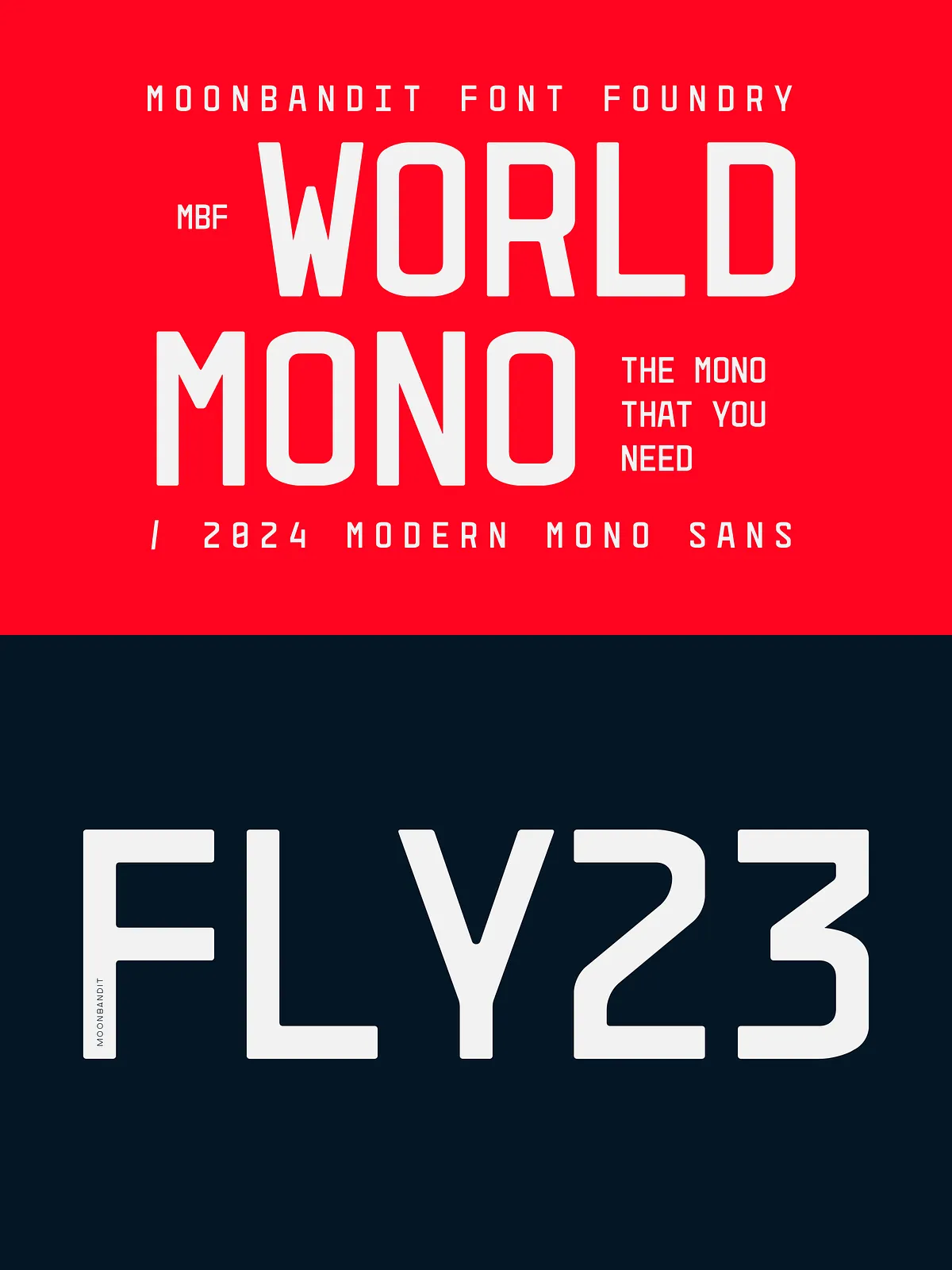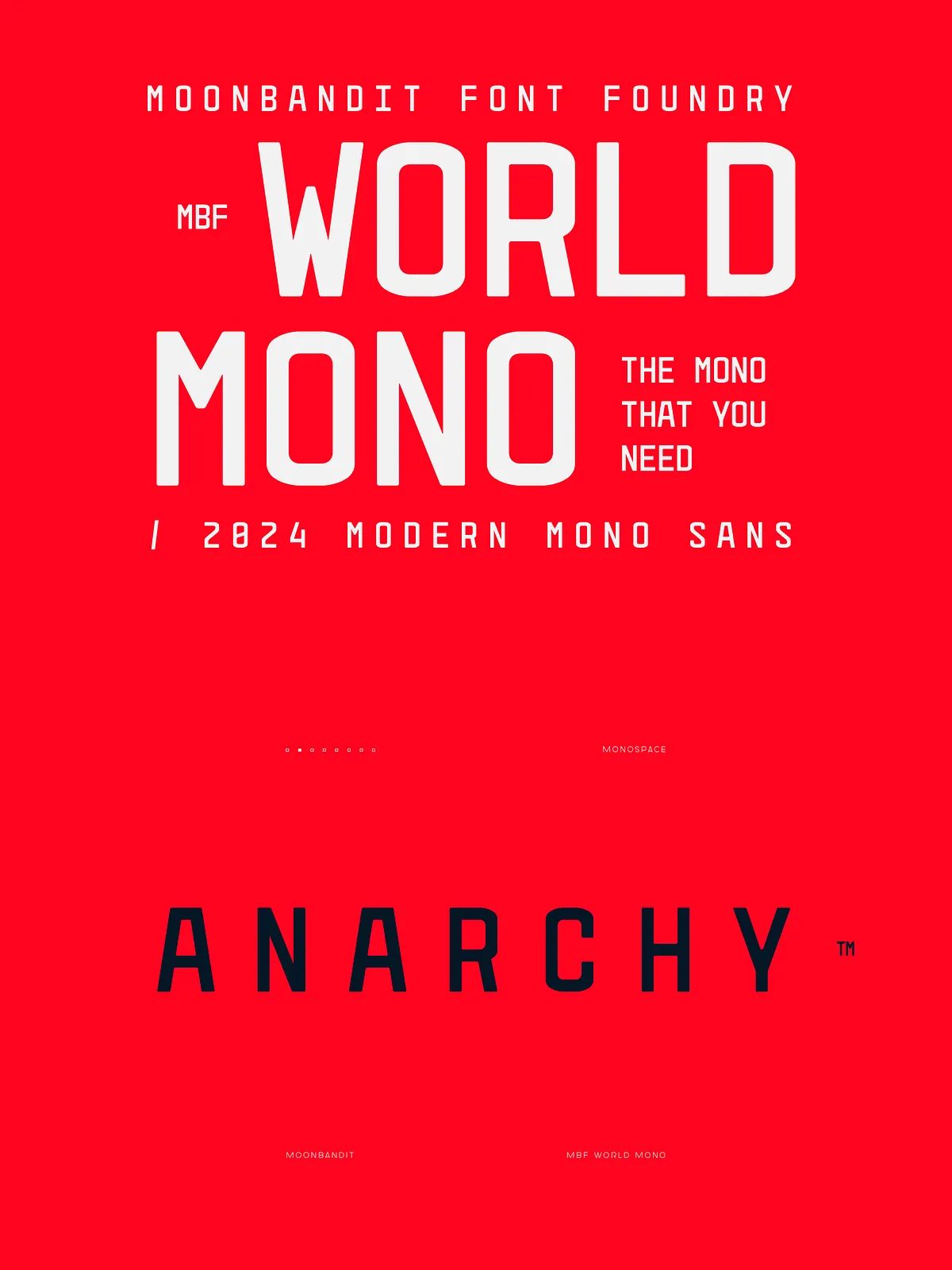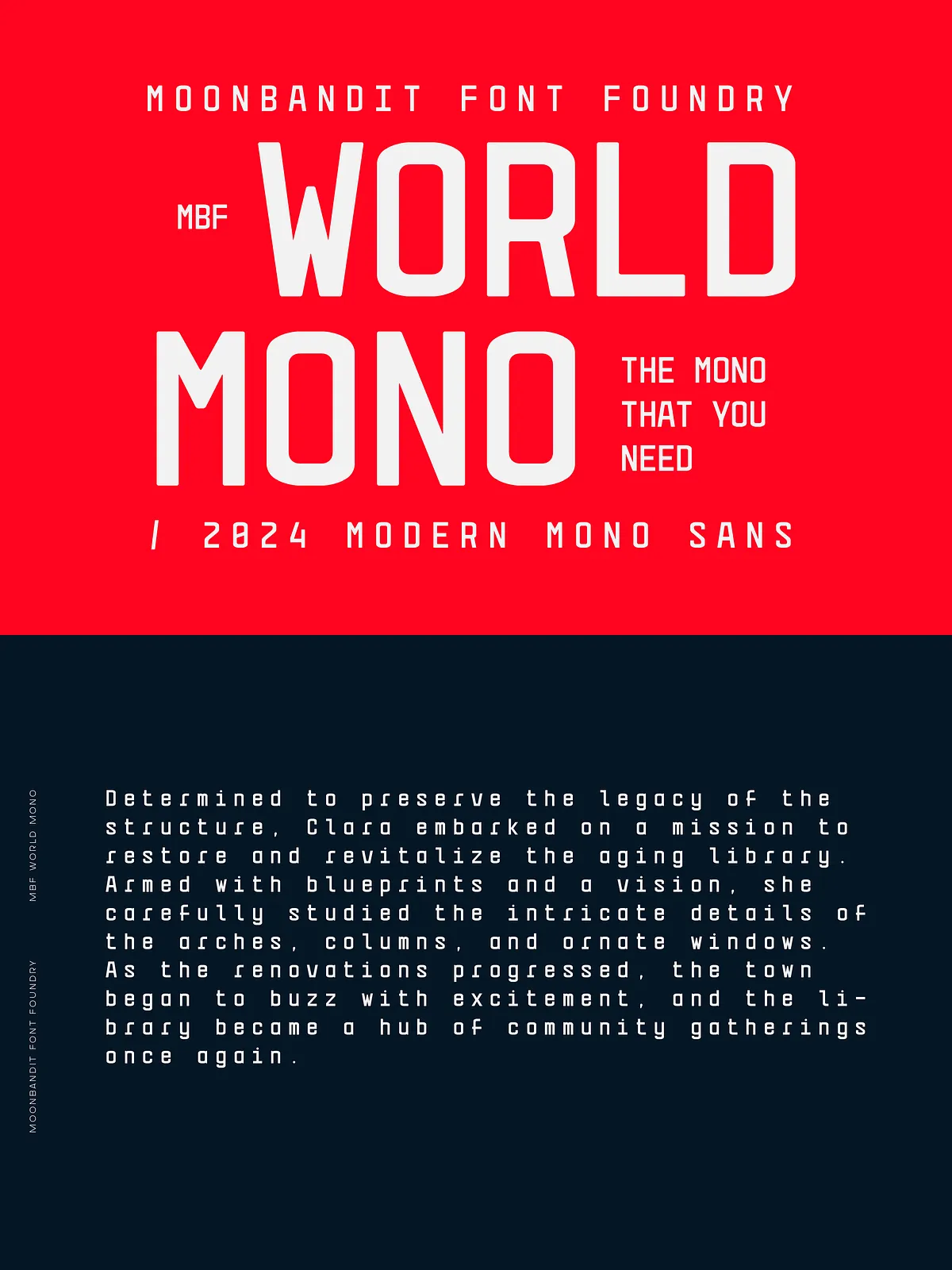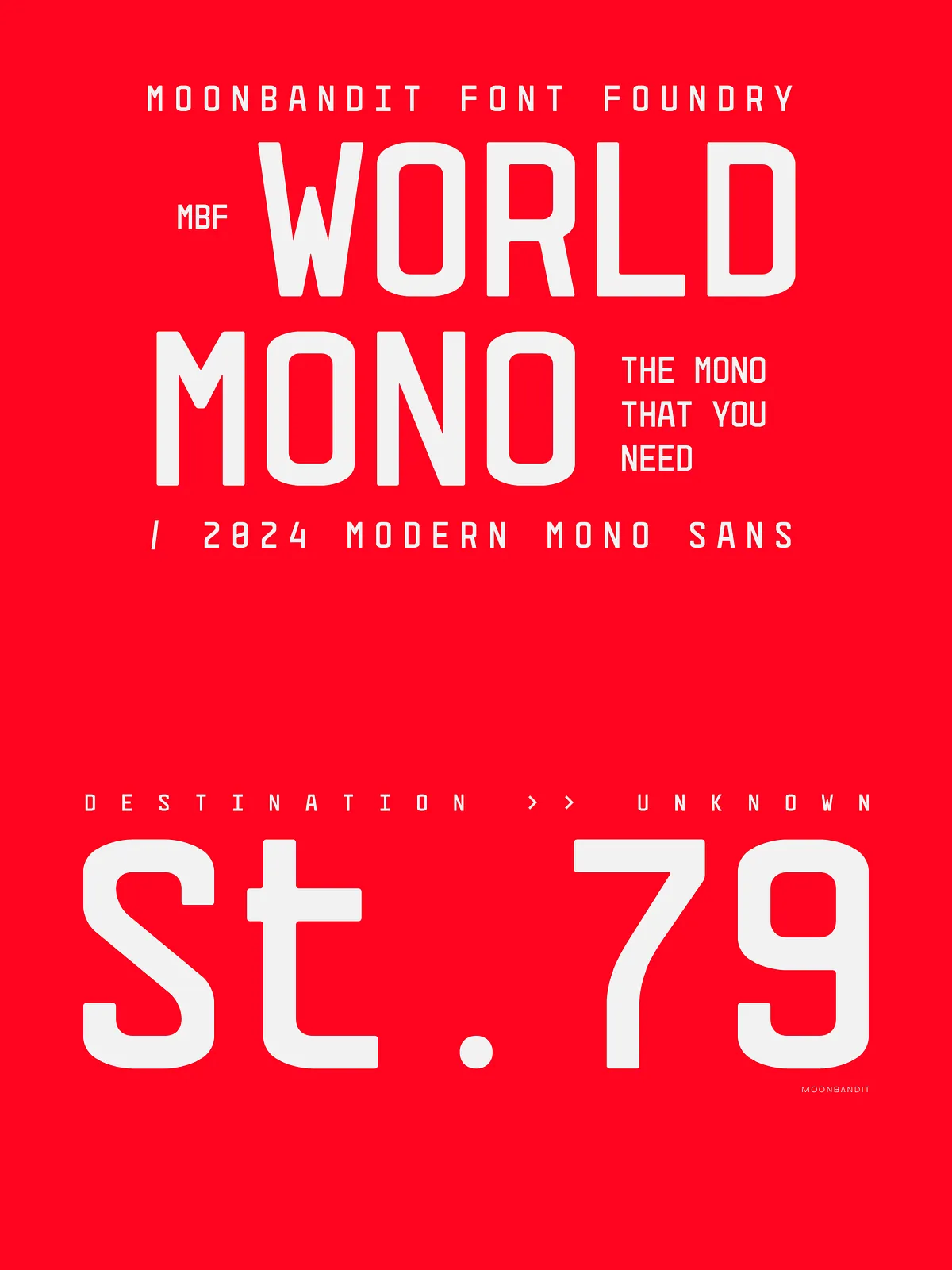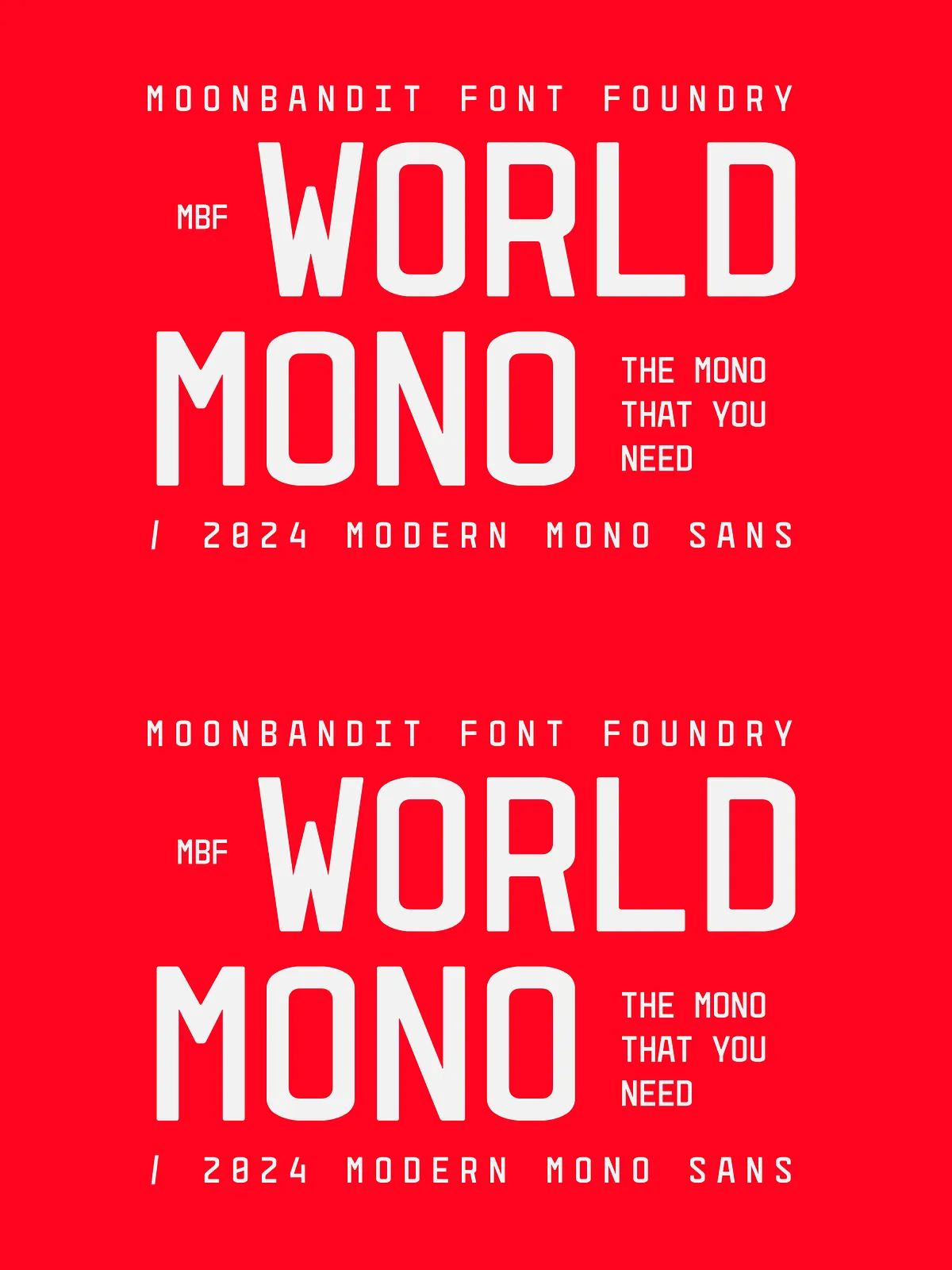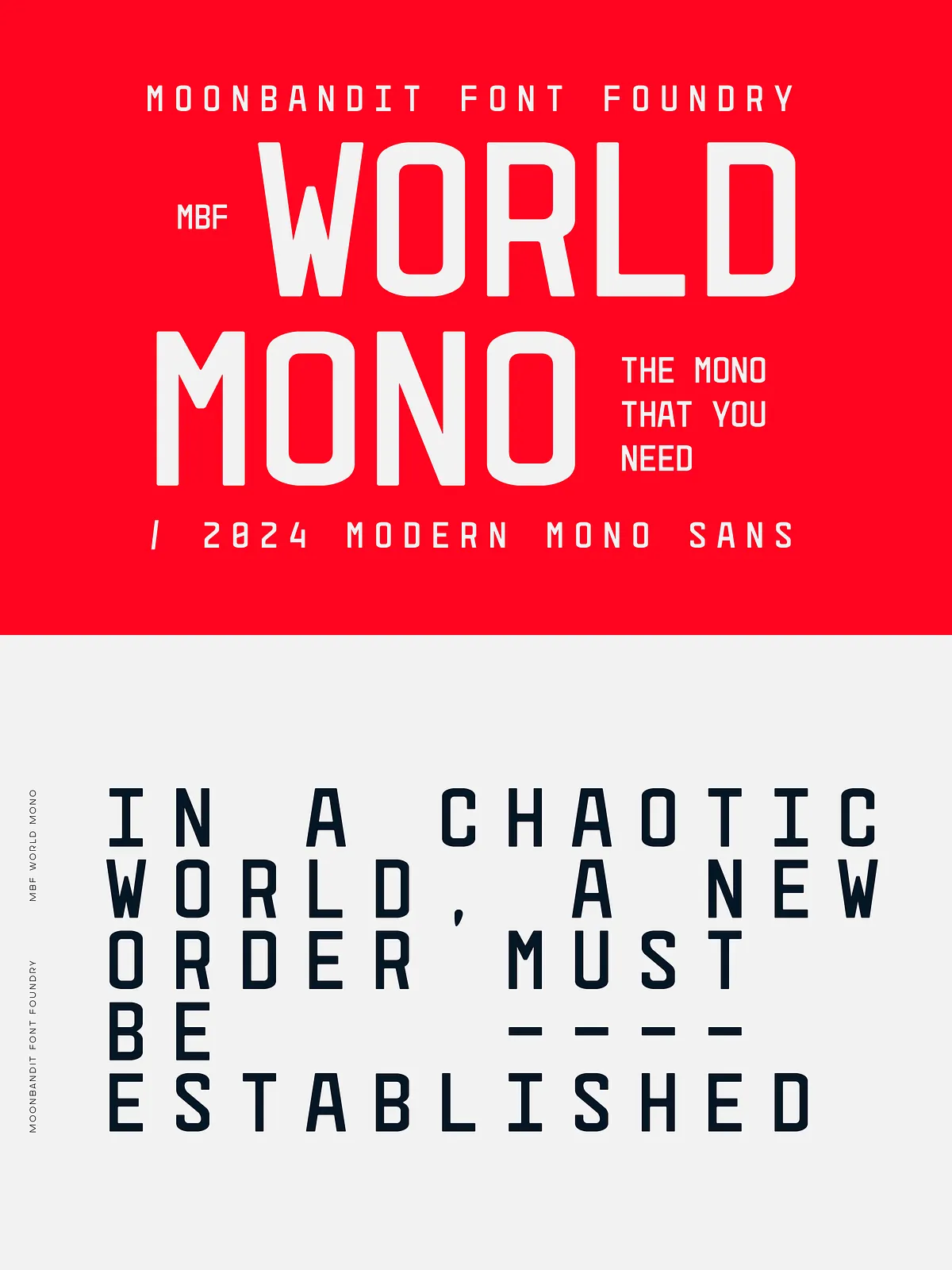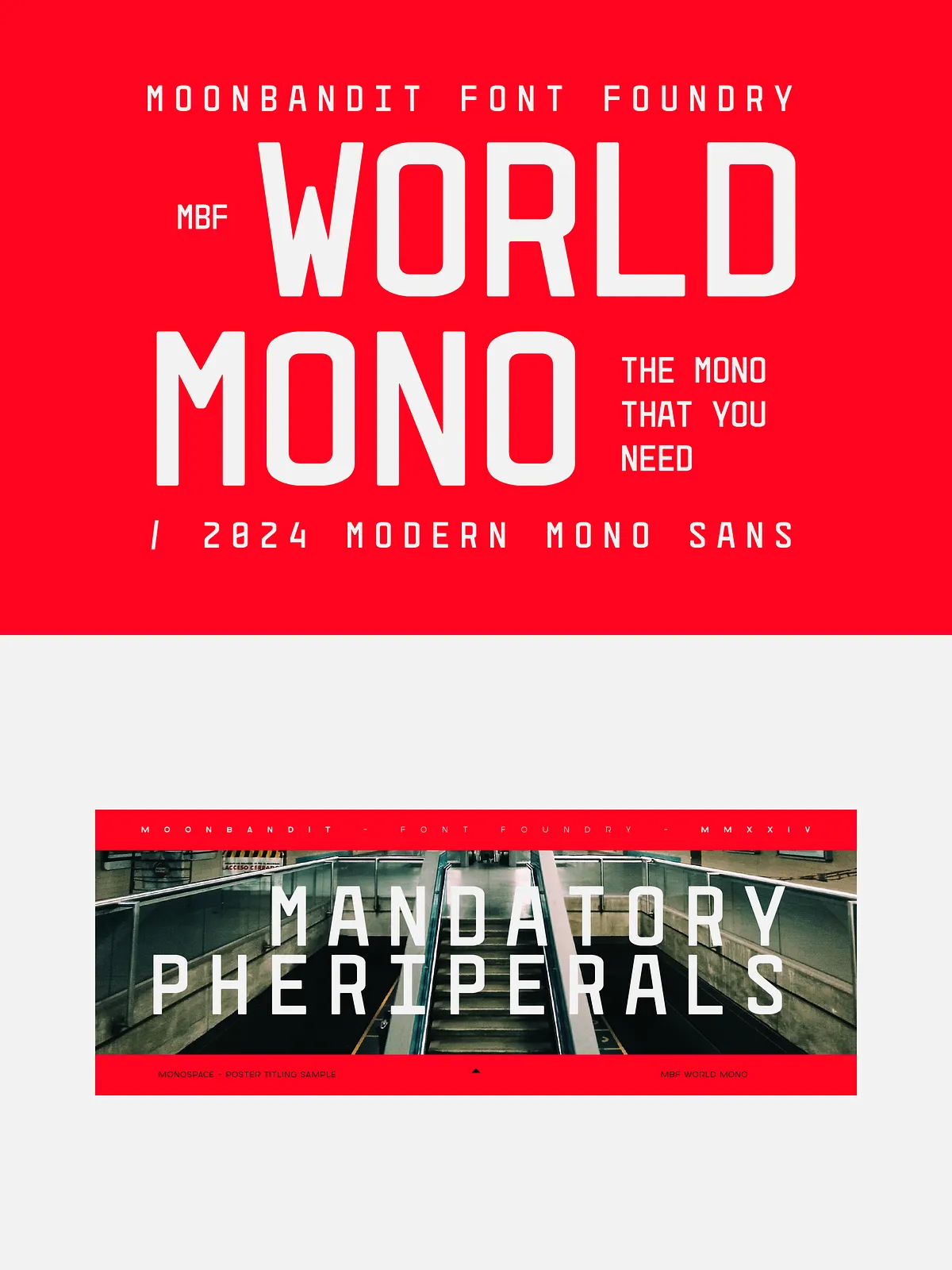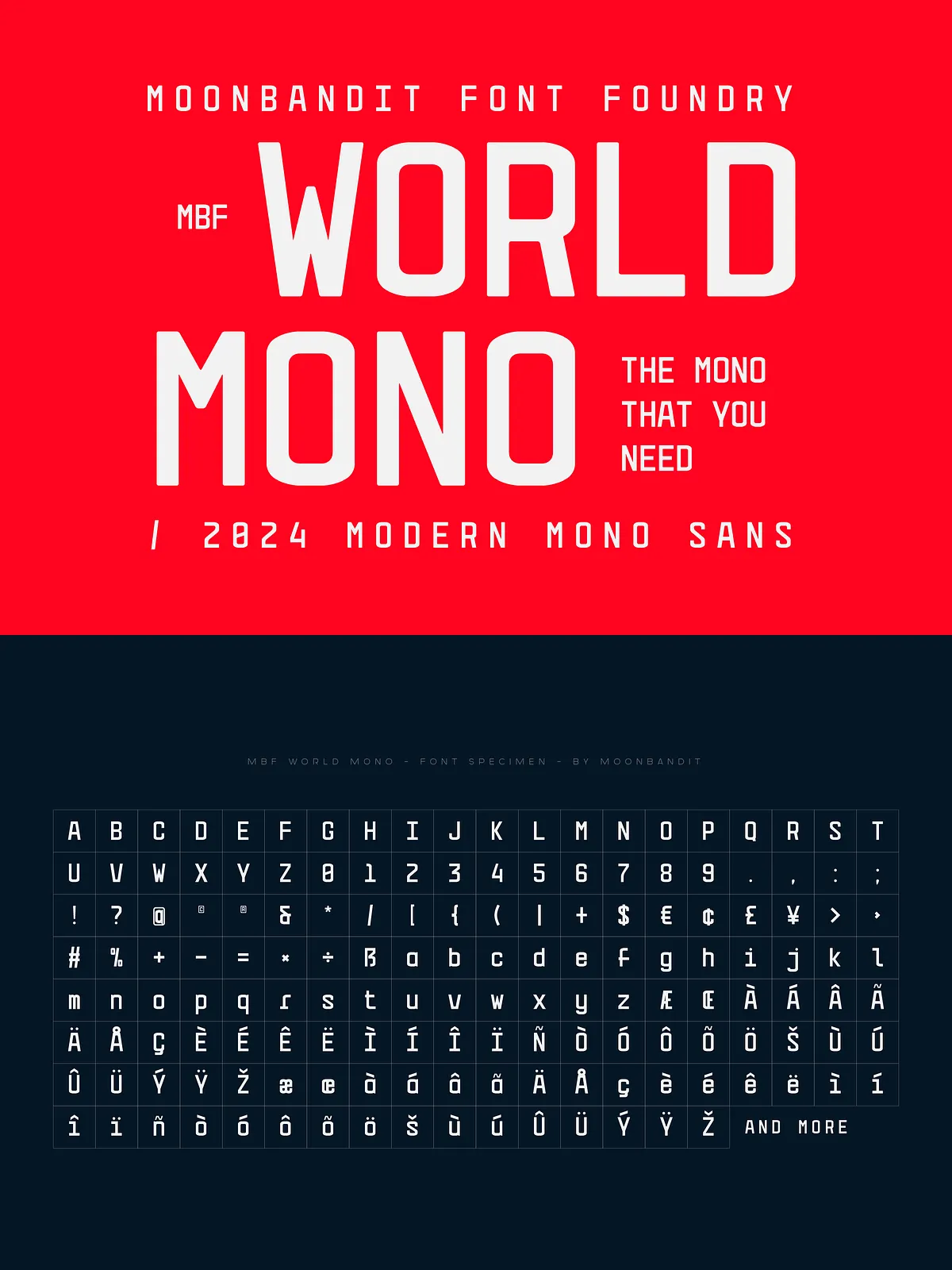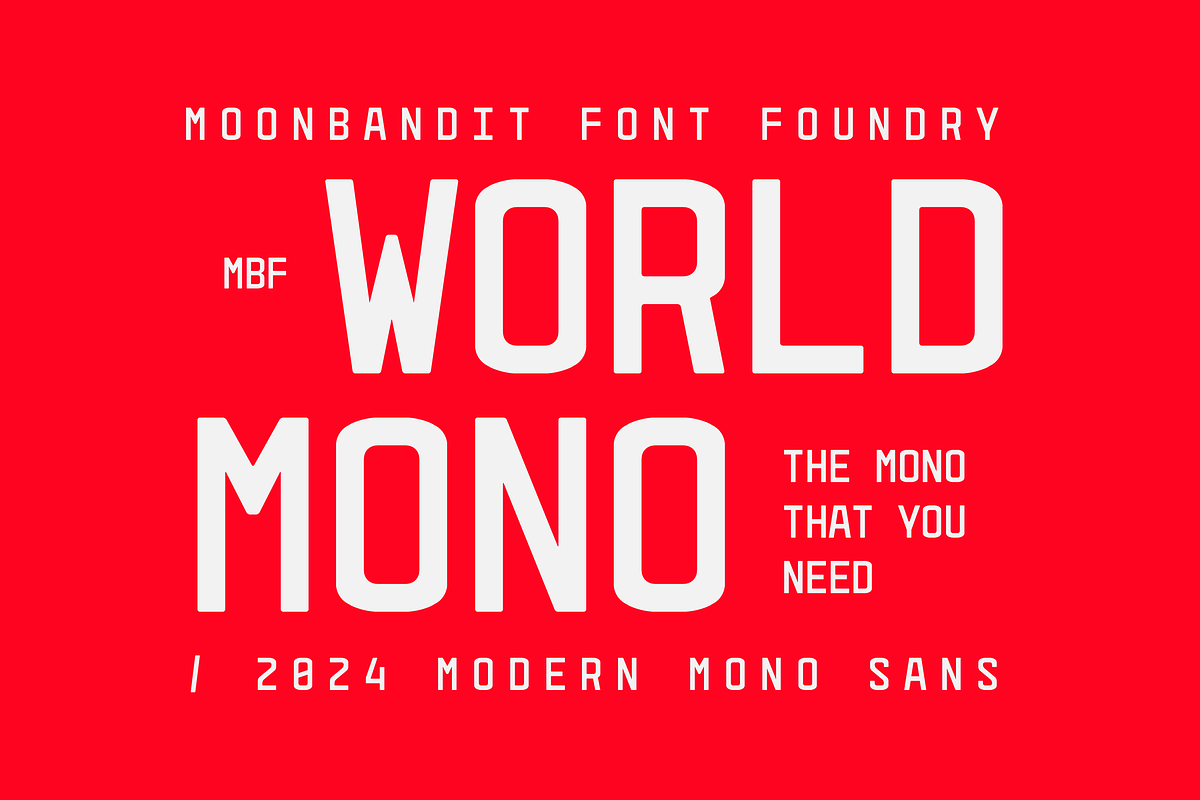
Stop blending in. Start commanding attention. MBF World Mono isn’t just a font—it’s a declaration. Engineered from the ground up for impact, this monospace powerhouse is your go-to weapon for designs that demand to be seen. Whether you’re crafting a jaw-dropping concert poster, designing a striking digital billboard, or building a bold brand identity, MBF World Mono transforms text into a visual force.
Every character is built with a sense of authority. Its sharp, angular forms and consistent stroke width deliver a clean, no-nonsense aesthetic that cuts through visual noise. This isn’t subtle typography; it’s a visual statement. With its powerful structure and modern edge, MBF World Mono redefines what it means to be bold in typography.
Engineered for Scale and Clarity
Large-scale design isn’t just possible with MBF World Mono—it’s its natural habitat. The font’s design ensures it remains legible, sharp, and impactful from a few centimeters away to hundreds of meters in the distance. Its clean lines and balanced spacing prevent visual clutter, even at massive sizes, so your message remains crystal clear.
Whether it’s a festival stage backdrop, a city-wide advertisement, or a presentation slide that needs to captivate an audience, MBF World Mono maintains its strength and integrity. No blurriness. No loss of detail. Just pure, unfiltered visual power. Its optimized kerning and consistent character width ensure perfect alignment and rhythm, making it ideal for text that needs to stand out in any format.
• Core Strengths:
- Monospace Powerhouse: Rigid alignment and consistent spacing create a structured, commanding presence.
- High-Visibility Design: Optimized for large formats and digital screens—perfect for posters, displays, and web headers.
- Modern Aesthetic: Clean lines and geometric precision reflect contemporary design sensibilities.
- Uncompromising Clarity: Reads clearly at any size or distance, making your message impossible to ignore.
- Visual Consistency: Uniform character width ensures flawless alignment across long text blocks or complex layouts.
Limitless Applications in Bold Design
MBF World Mono thrives where audacity meets precision. It’s not a one-trick pony—it’s a versatile tool for designers who want to make a statement.
• Perfect For:
- Event & Concert Posters: Draw crowds with a title that dominates the visual space.
- Display Signage: Create eye-catching wayfinding systems, digital ads, or retail displays.
- Brand Identity for Tech & Startup Companies: Project confidence and innovation with a unique, strong character.
- Digital Visuals & Animations: Use its sharp geometry to enhance motion graphics or UI elements.
- Typography-Driven Art: Turn text into a central artistic element in posters, prints, and installations.
- Game UI & Concept Art: Infuse futuristic or high-tech themes with authentic visual authority.